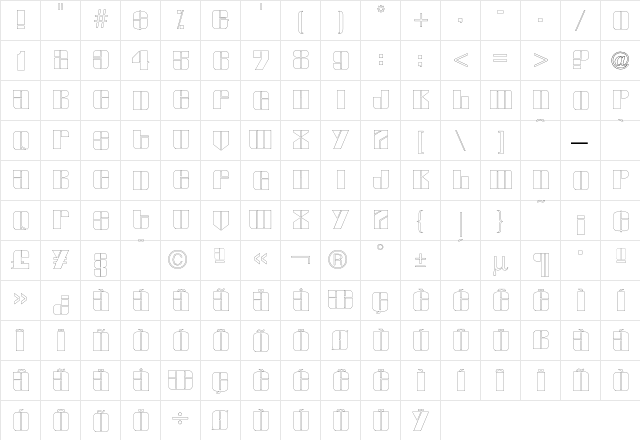
Glyphic SeriesOutline
Design Context for Glyphic Typeface
Glyphic is built around its visual character rather than neutral utility — its distinctive forms are designed to make an impression at display sizes.
Font Pairing: Pair with a clean neutral sans-serif for body copy to let Glyphic's character lead without overwhelming the composition.
Pro Tip: Treat Glyphic as the centrepiece of your typographic hierarchy. One strong heading set in a decorative face can carry an entire layout.